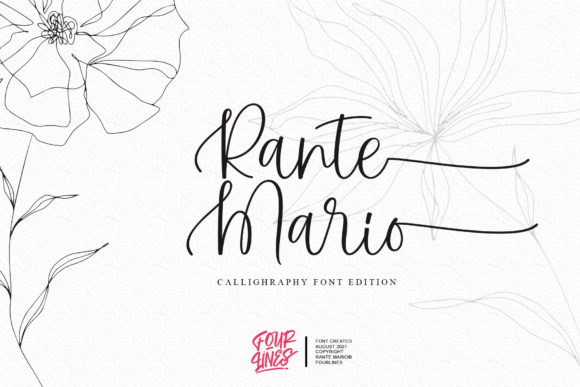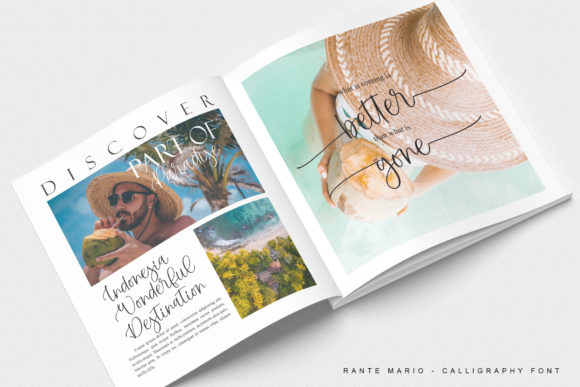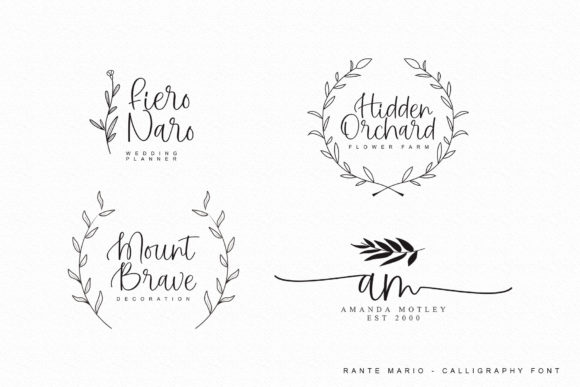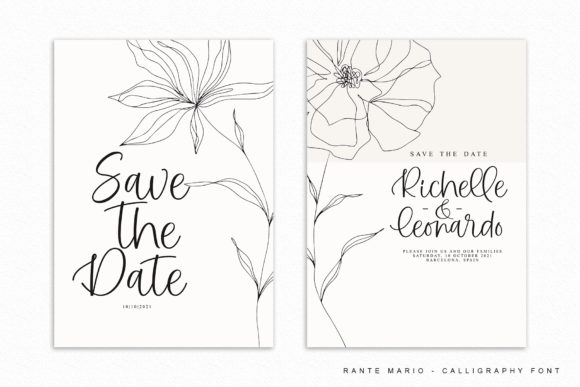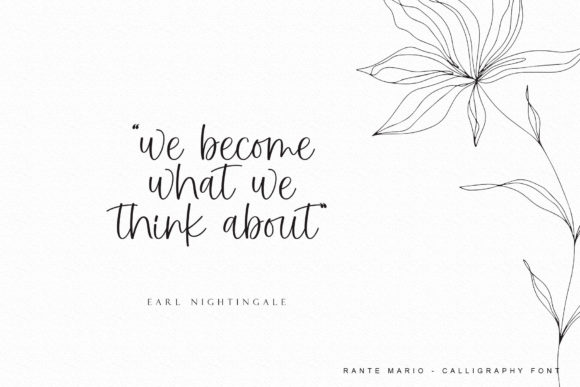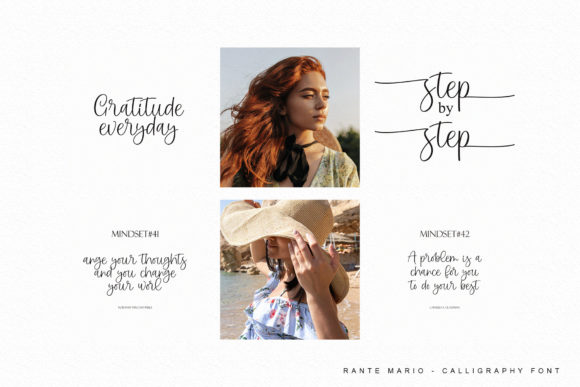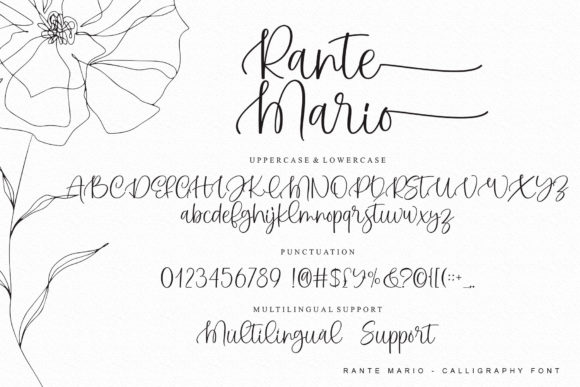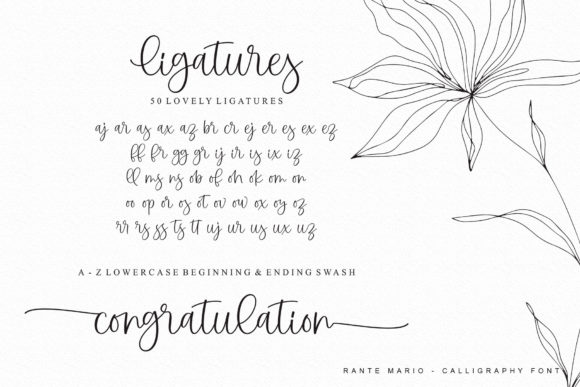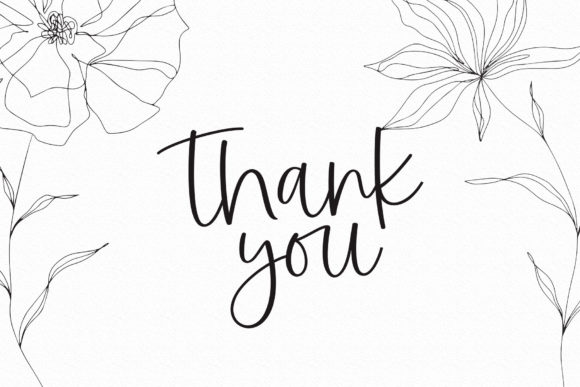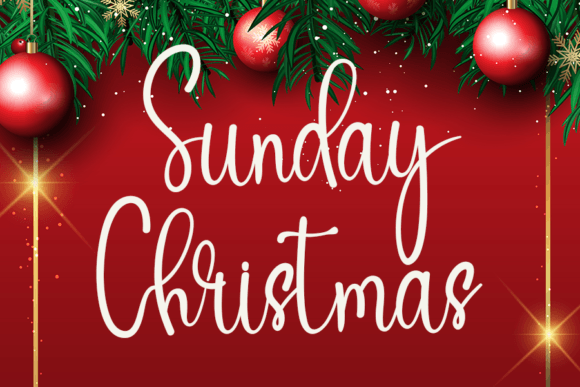
Rante Mario Font
About Rante Mario Font
Rante Mario is an exquisite handwritten font, masterfully designed to become a true favorite. It maintains its classy calligraphic influences while feeling contemporary and fresh. Rante Mario is PUA encoded which means you can access all of the glyphs and swashes with ease!